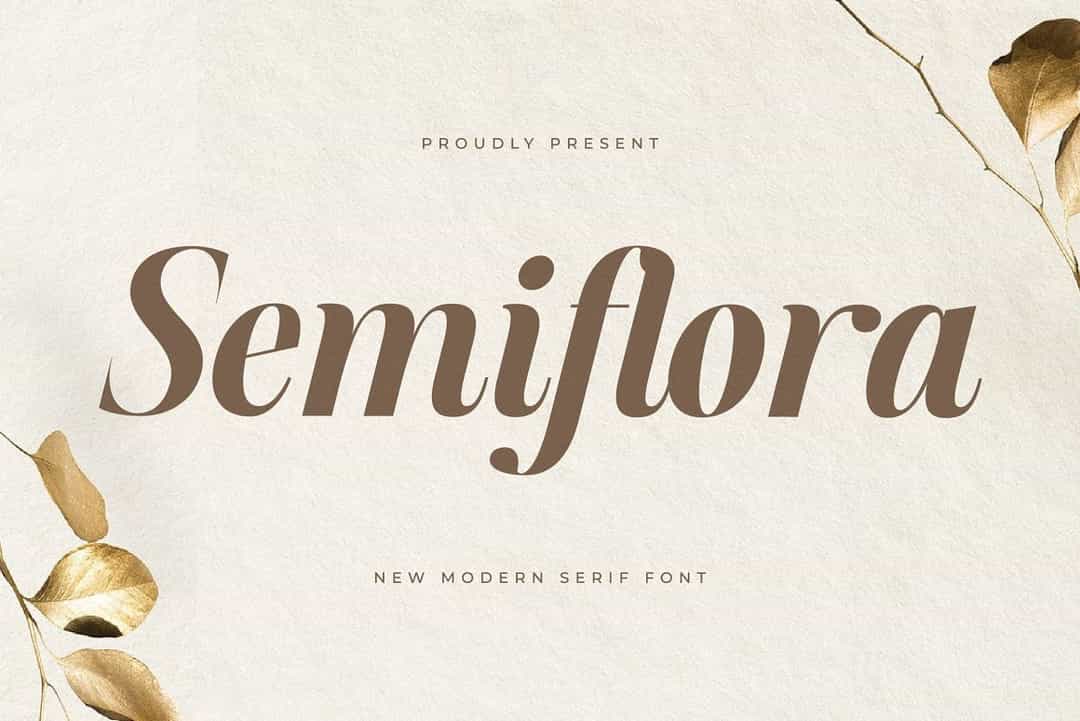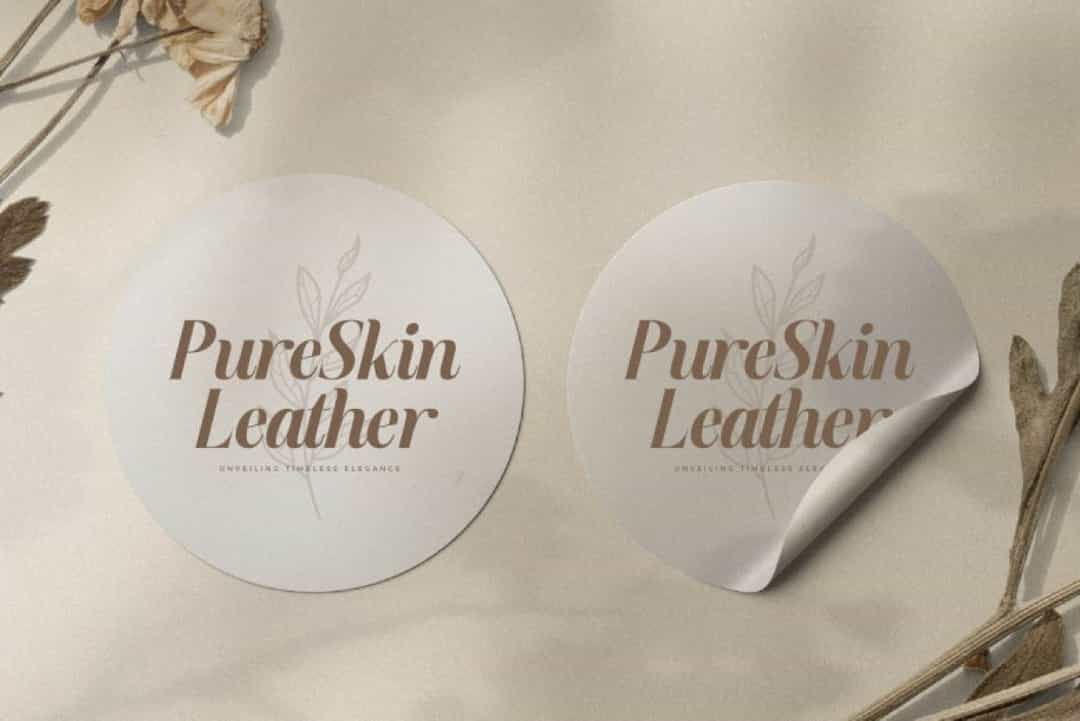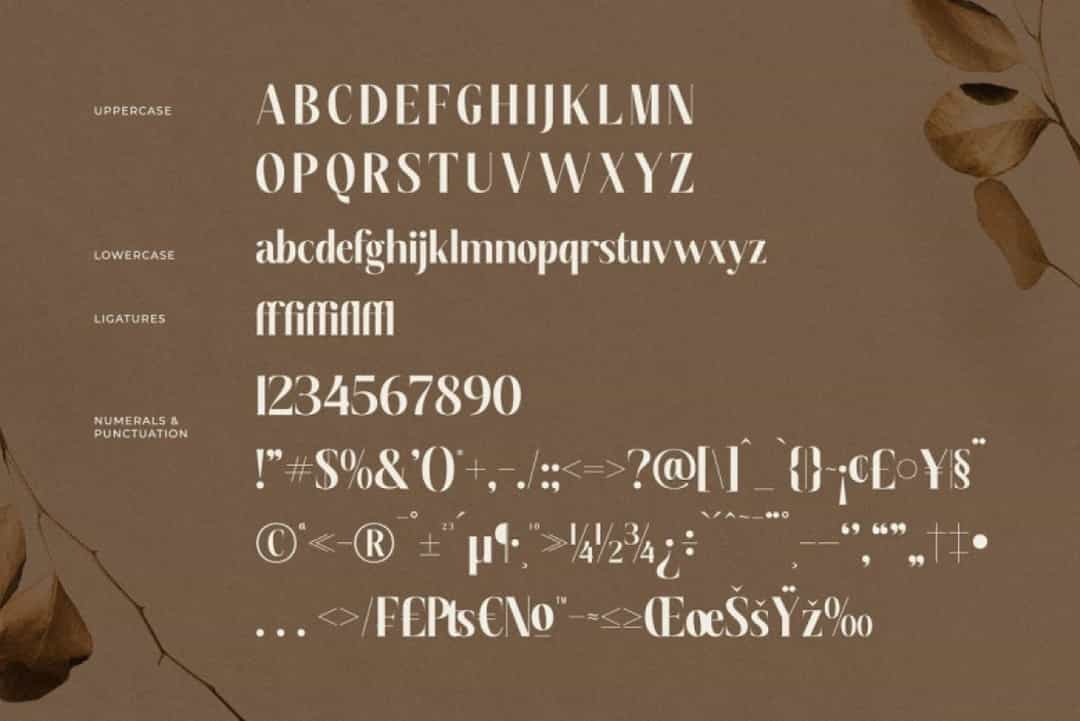
Semiflora is an innovative and modern serif typeface with its own distinct style and contemporary appearance, perfect for logos, movie or book titles, fashion label magazines, clothing designs, lettering quotes and many other applications.